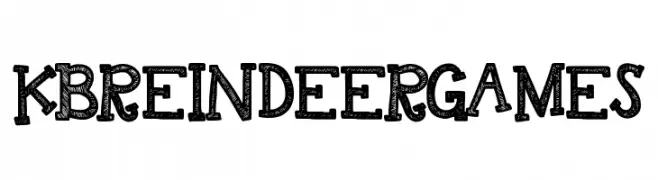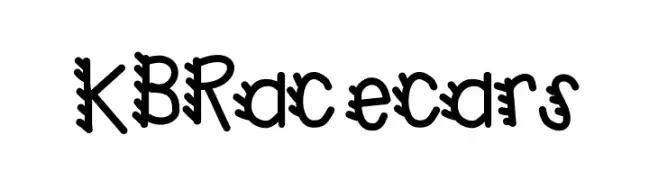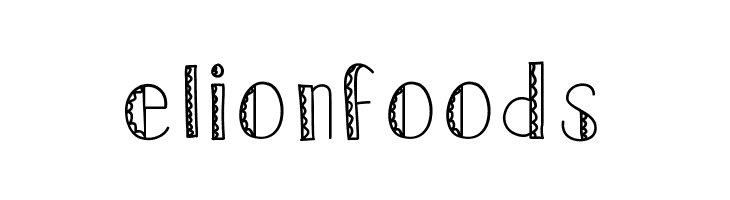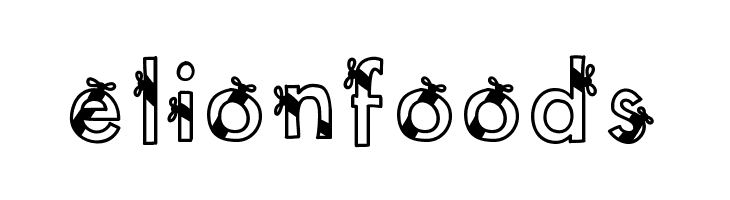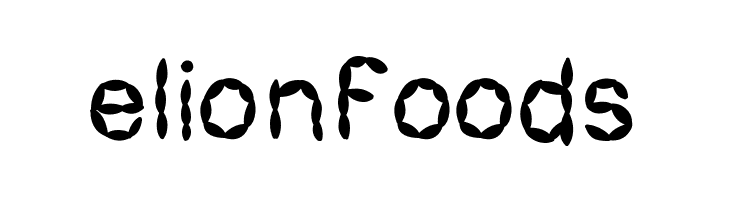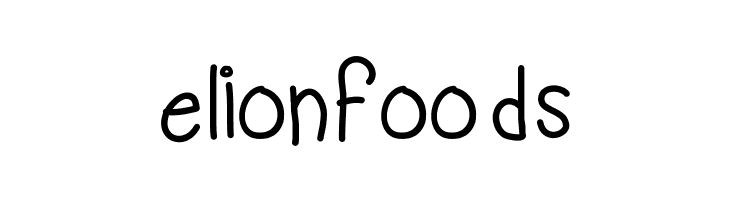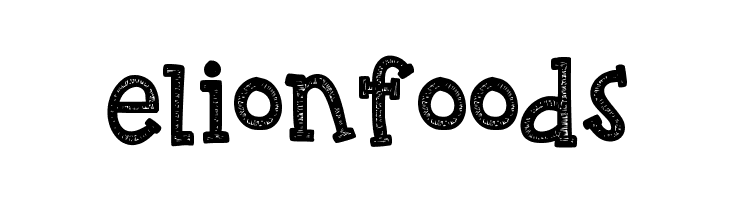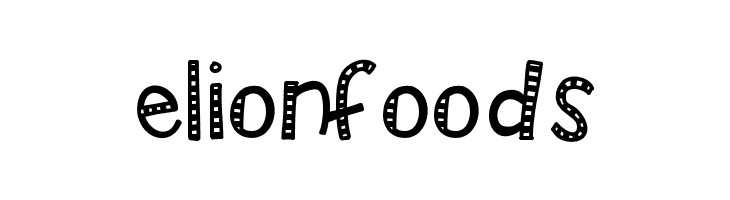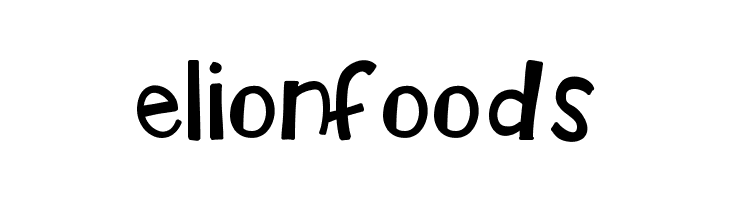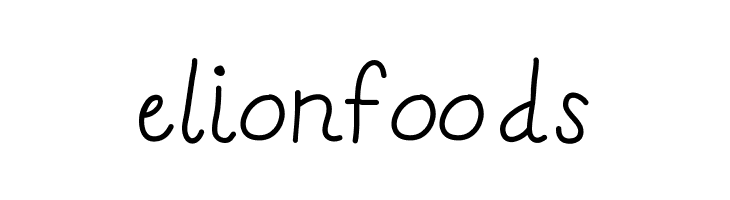
A playful, decorative font with spiky embellishments and bold, rounded characters.
A playful, hand-drawn font with a whimsical and informal style.
A playful, dotted font with a marquee-inspired design.
A playful, textured font with a hand-drawn, chalk-like effect.
A decorative font with ribbon-like embellishments on each character, perfect for festive designs.
A playful, organic font with vine-like, hand-drawn characters.
A whimsical, hand-drawn decorative font with intricate patterns.
A playful, handwritten font with rounded, informal letterforms.